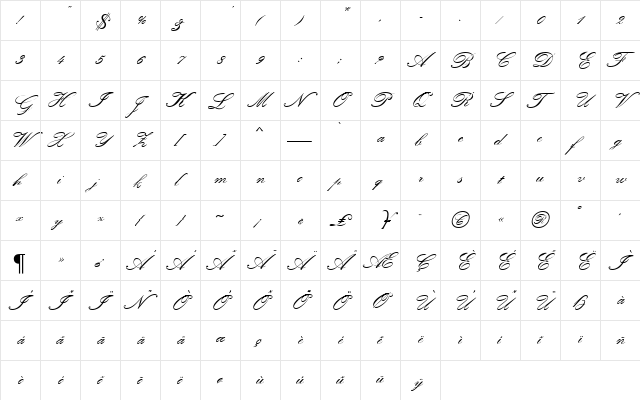
Classic Script MN Regular Font Preview
Classic Script MN Regular
Design Context for Classic Script MN Typeface
Classic Script MN wears its vintage influences proudly, with letterforms that recall mid-century signage, classic packaging, and nostalgia-driven design.
Ideal for diner signage, record shop branding, 70s/80s-themed projects, and heritage product labels.
Font Pairing: Combine Classic Script MN with a simple slab or neutral sans — period-accurate companions reinforce the vintage feel without competing for attention.
Pro Tip: Lean into Classic Script MN's period character by pairing it with aged paper textures, muted colour palettes, and vintage illustration styles.